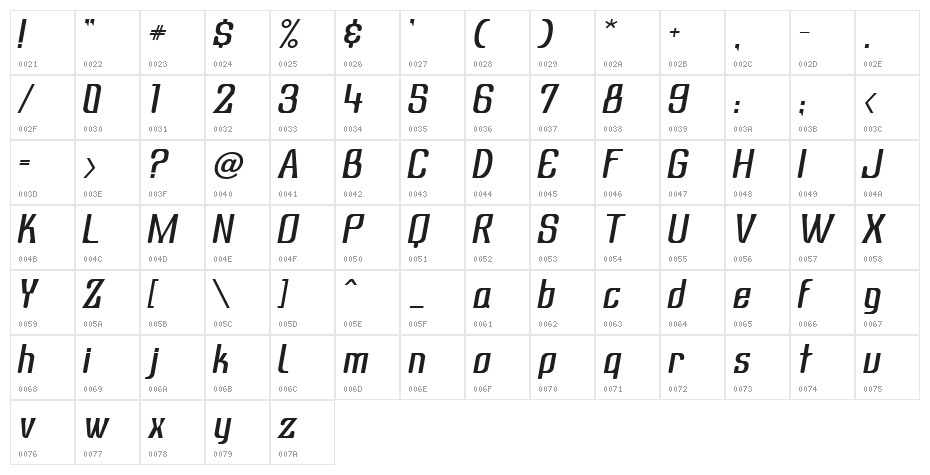
Subatonik Italic Font
Subatonik Italic Description
This font features a dynamic and modern italic style with a forward-leaning slant that conveys movement and energy. The characters are sleek and elongated, with a consistent stroke width that maintains readability while adding a touch of elegance. The uppercase letters are bold and assertive, while the lowercase letters maintain a smooth flow, making it versatile for various design needs. The numerals are clear and distinct, matching the overall aesthetic. Special characters are well-integrated, ensuring a cohesive look across all text elements.
| Proposed Projects | Ideal for branding, advertising, sports-related designs, and dynamic editorial layouts. |